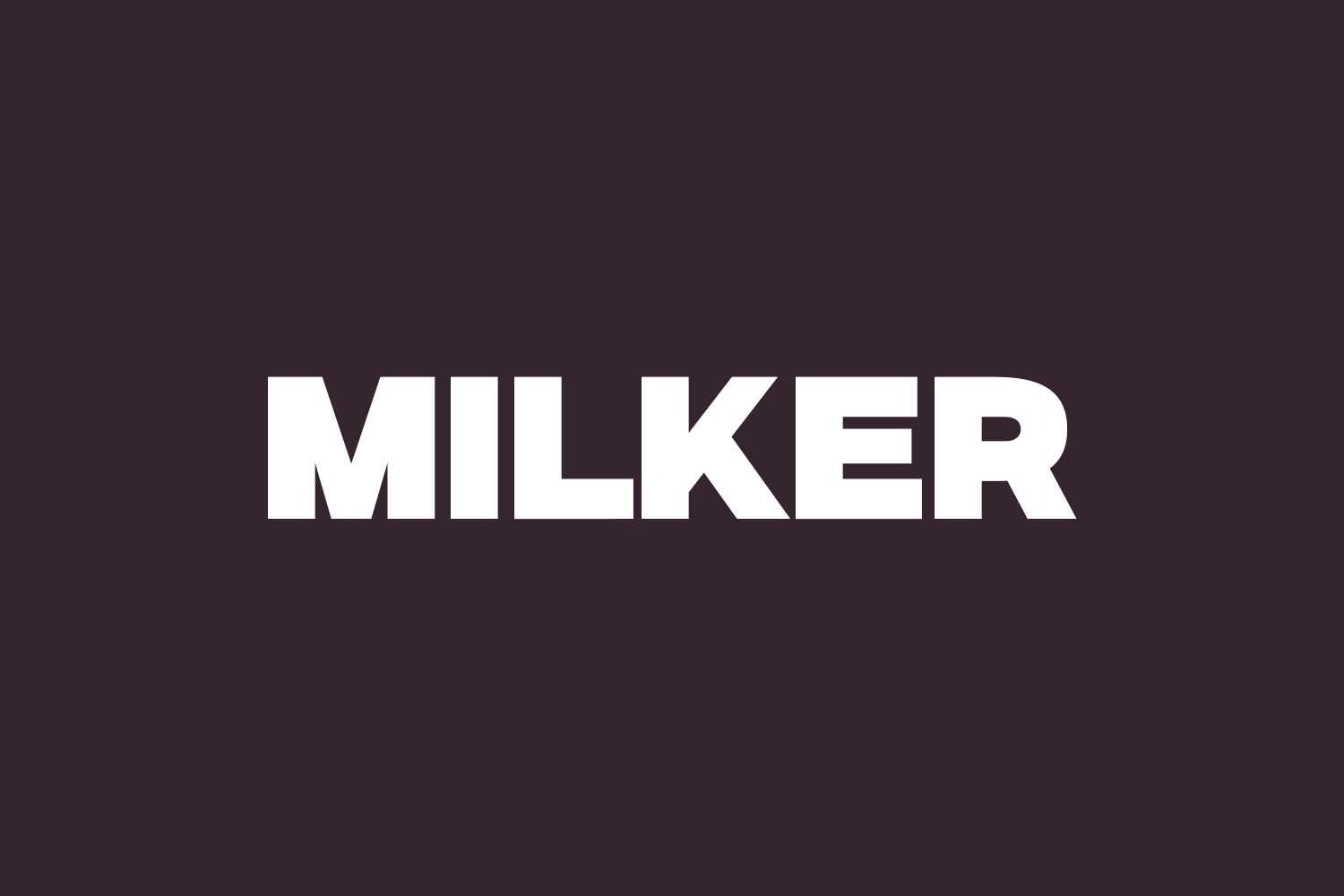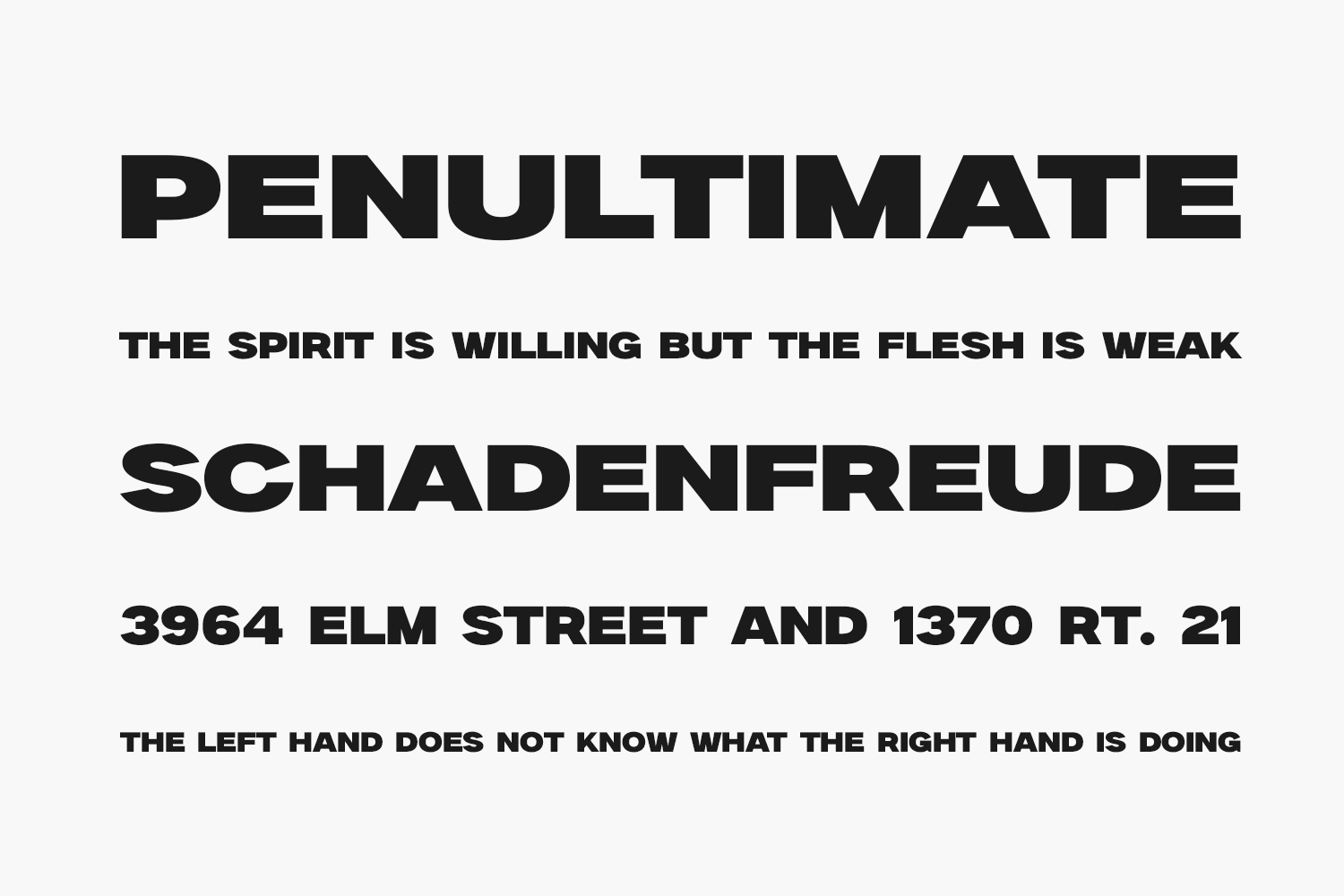
Introducing Milker Free Font: a contemporary and daring font designed for maximum impact. Perfect for headlines, logos, branding, magazines, packaging, and invitations, Milker adds a touch of sophistication with its clean lines and sleek curves. Elevate your projects with its modern elegance. Download the font for free if you need it for personal use or purchase the full version for commercial use.
Designed by BrandSemut